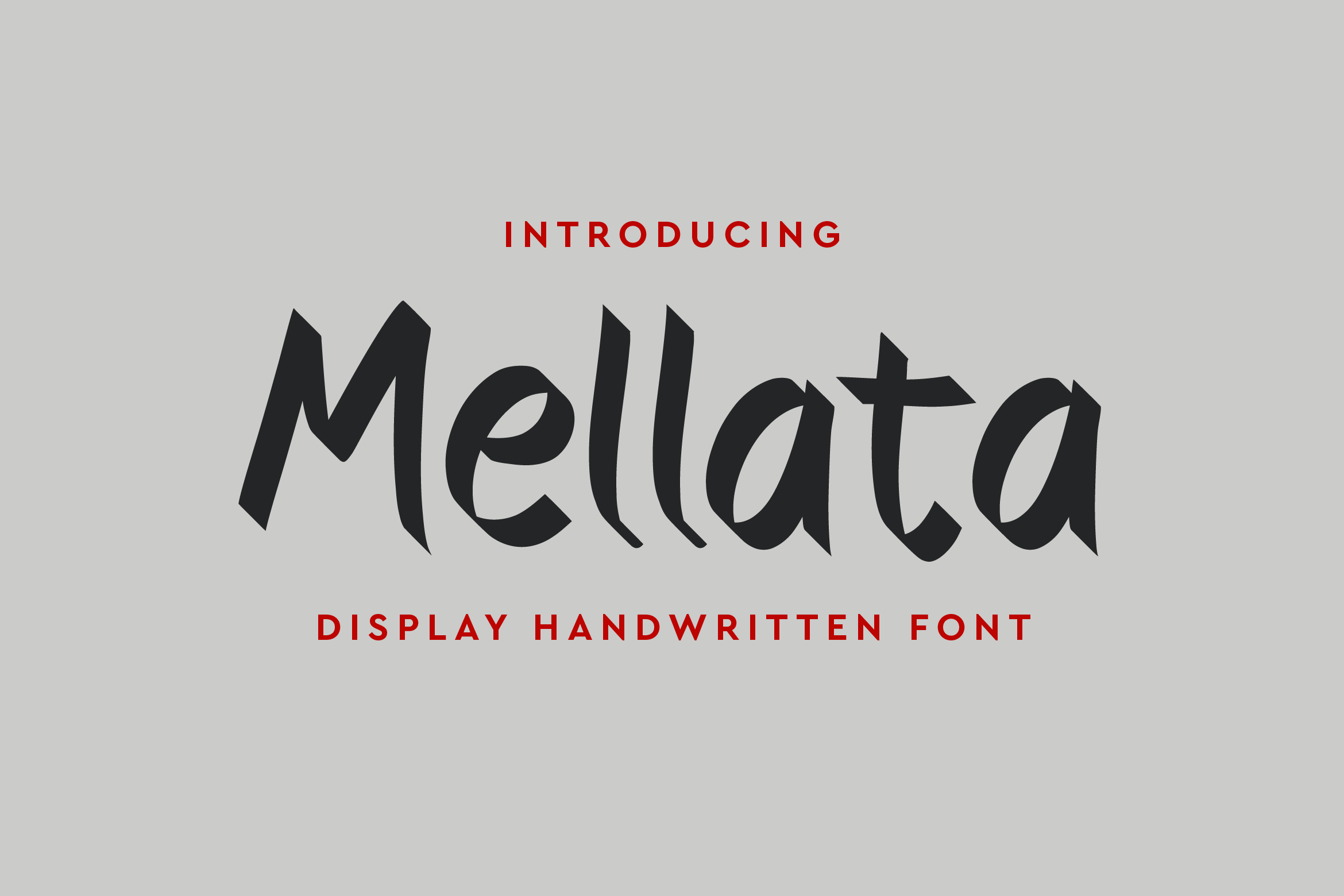
- Mellata Handwritten Brush Font
Mellata is a modern handwritten font that combines the elegance of natural pen strokes with a casual and approachable style. Its flowing curves and smooth lines create a sense of warmth and authenticity, making it perfect for branding, wedding invitations, product packaging, social media graphics, and creative projects that need a personal touch.
Designed for versatility, Mellata includes uppercase and lowercase letters, numerals, punctuation, multilingual support, and a beautiful selection of ligatures and stylistic alternates to give your text a unique and handcrafted feel.
Whether you’re designing a signature logo, a romantic stationery set, or stylish digital content, Mellata adds charm and sophistication to every design.
Bring elegance and personality to your work with Mellata — the handwritten font that speaks with beauty and modern flair.